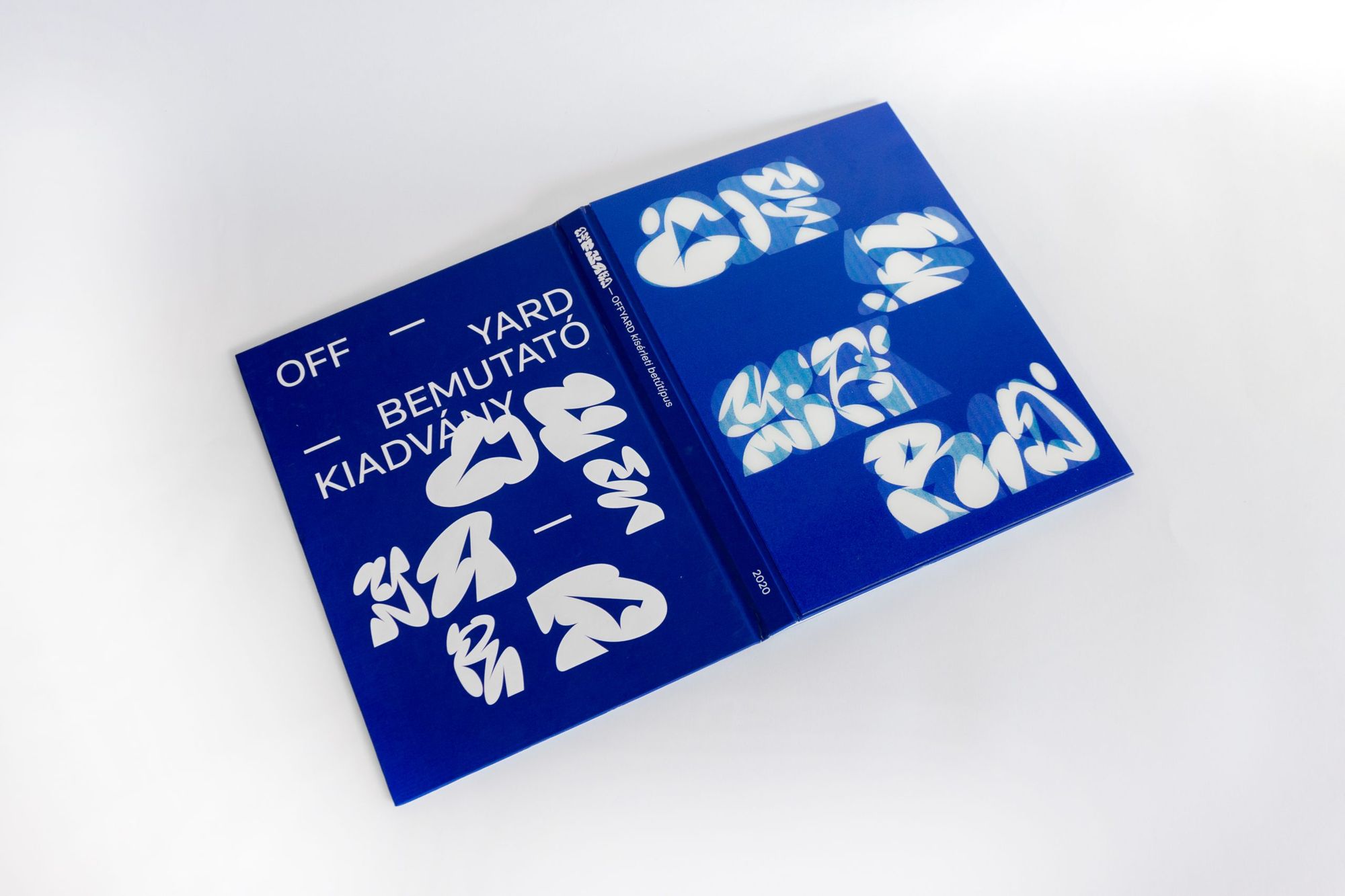
Tamás Sipos had studied the unique formal elements of graffiti, then created three versions of the OFFYARD experimental font.
Most of the time we associate graffiti with underground subculture, however, their unique visual world has an impact on all of us: they are organically integrated into the fabric of cities, we see them every day.
The spray-painted graffiti is a thing of the streets, so it’s questionable whether the genre can find a way for itself in the digital space. Tamás Sipos set out to answer this question: he manifests the atmosphere of the writings on the wall originally made in a quite free and vigorous manner in an experimental font.
Realizing the hand-sprayed graffiti in a precise, digital form might seem like a contradictory process at first, however, the designer found several unique and recurring elements in the research phase that he could turn to during the design process for inspiration.
He created three versions of the OFFYARD font bordering on legibility and spectacular, abstract forms, as well as a publication in which one can also read related texts in addition to the pictures of the more than 200 graffiti photographed near Debrecen and Eger in the course of the research; or at least one could read, if the font compositions of OFFYARD didn’t cover the writings, thus giving an authentic demonstration of the random stratification of real graffiti.
OFFYARD – diplomawork of Tamás Sipos